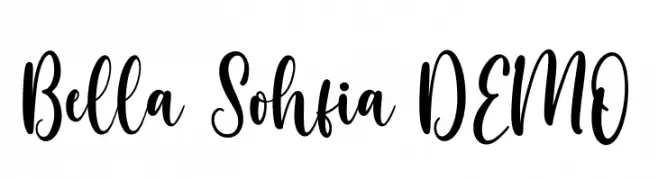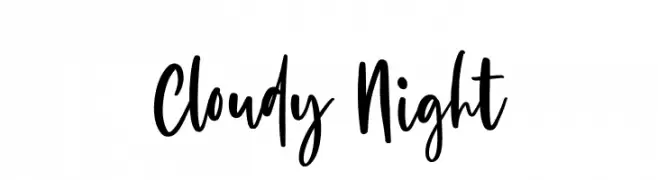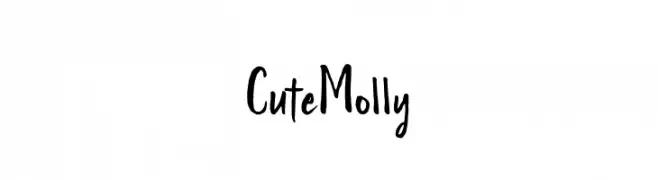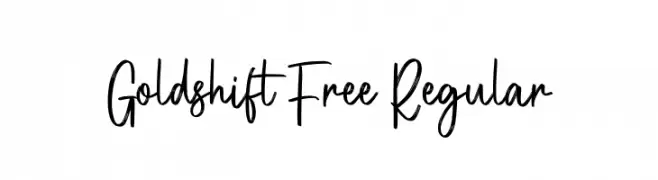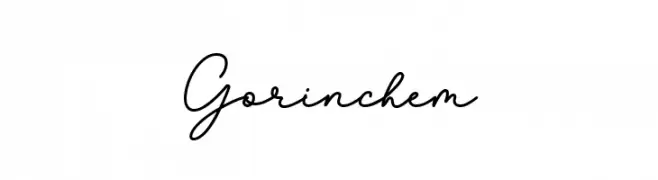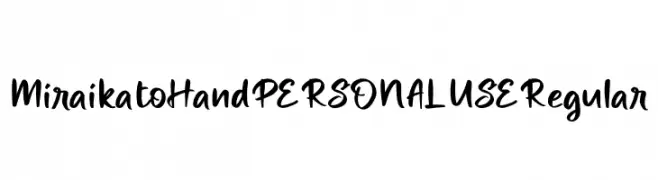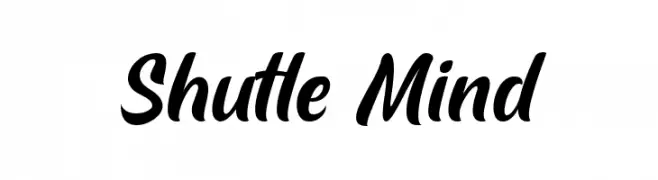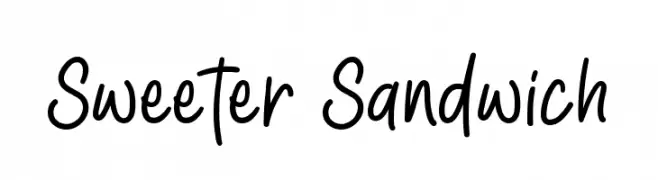
A playful handwritten font with a whimsical and creative style.
A bold, dynamic script font with flowing, interconnected letters.
A playful, handwritten font with smooth, flowing lines and a casual appearance.
A lively, handwritten script font with medium contrast and elegant flourishes.
A playful, rounded font with a hand-drawn appearance.
A charming handwritten font with fluid, connected letterforms and a casual elegance.
A bold, playful handwritten font with dynamic strokes.
A playful and casual handwritten font with fluid, dynamic strokes.
A bold, expressive handwritten font with fluid and dynamic strokes.
A playful, handwritten font with tall, narrow letterforms and a casual, modern style.